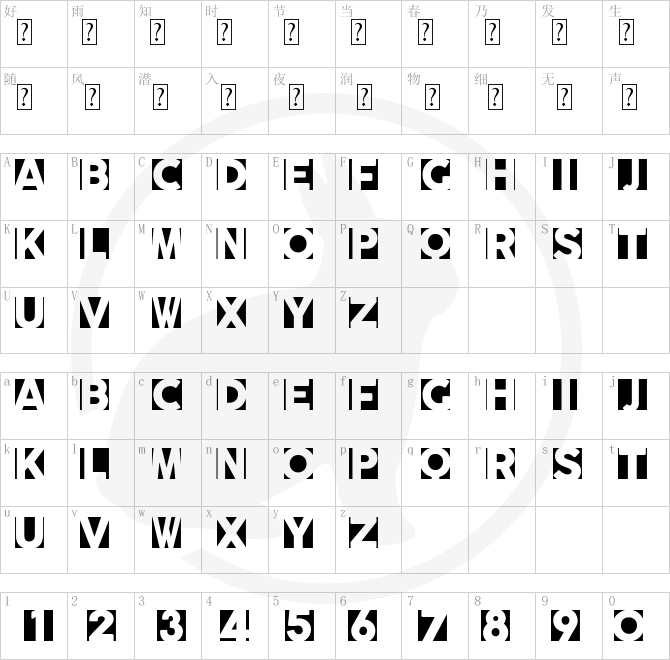
- Font Name:radicalblock
radicalblock.ttf is a very beautiful artistic font, radicalblock.ttf is widely used in the design and printing of various books and pictures,radicalblock.ttf has a strong visual impact,radicalblock.ttf is a commonly used font in newspapers, magazines and books, and is used in posters, e-commerce Poster design, store design, logo design, font design and other fields.radicalblock.